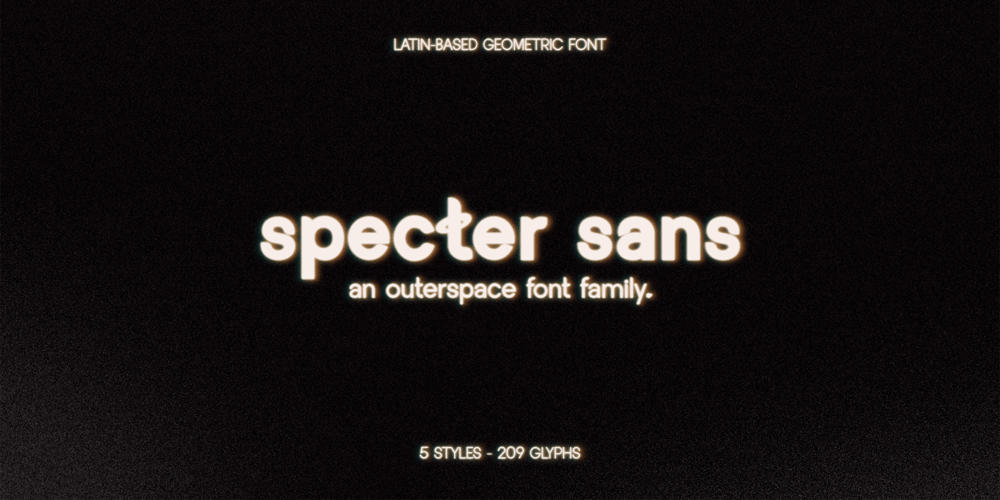
Specter Sans Font Family was designed by published by Pandowso. Specter Sans contains 5 styles and family package options. Specter Sans, an outer space font family, is here! With 5 different weights, it is a latin-based geometric font with lovely rounded shapes, presenting a modern, conceptual and welcoming personality to texts.Specter Sans conception was inspired by the universe and it’s beauty, creating a perfect fit for tech and creative brands. Containing 209 glyphs, Specter Sans brings to you the freedom to create sober texts with our lighter weights and traditional letter shapes or conceptual texts with the heavier weights and space-related symbols. It’s usage is also about exploration!Specter Sans is the half orange to projects that look for the discovery and magical feeling!